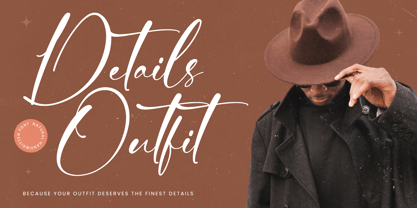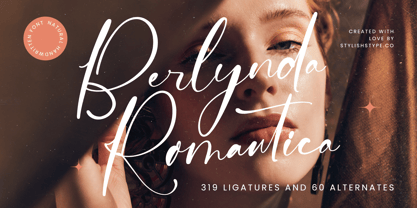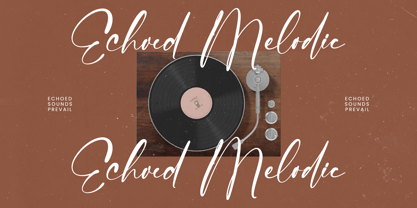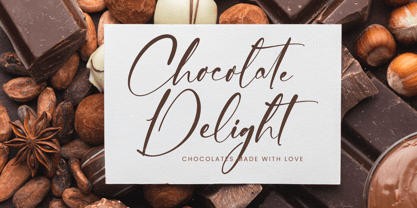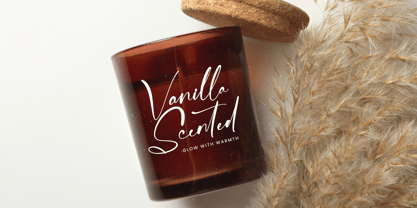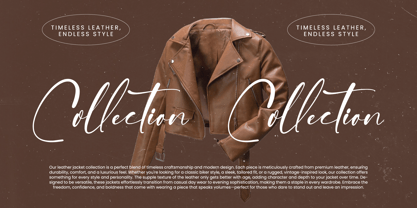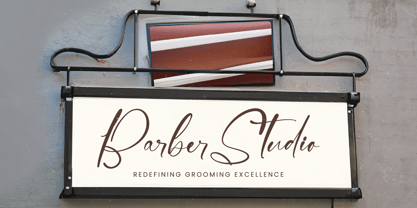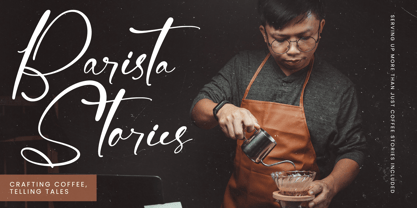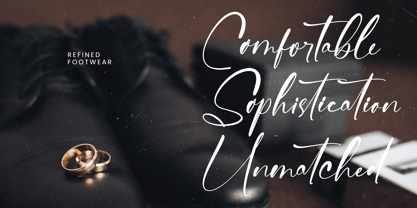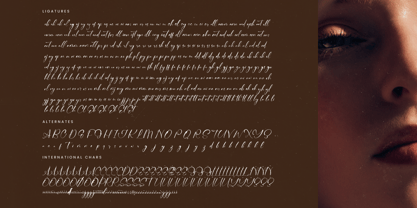
Berlynda Romantica
The Berlynda Romantica Font Family was designed by Heru Utama Putra and published by Stylishtype Studio. Berlynda Romantica contains 2 styles and family package options. More about this family
Berlynda Romantica - Natural Handwritten Font , from Stylishtype., Suitable for any projects such as: logos, branding projects, homeware designs, product packaging, mugs, quotes, posters, shopping bags, t-shirts, book covers, name card, invitation cards, greeting cards, label, photography, watermark, special events, and all your other luxury and beautiful projects that need a Luxury Script taste.